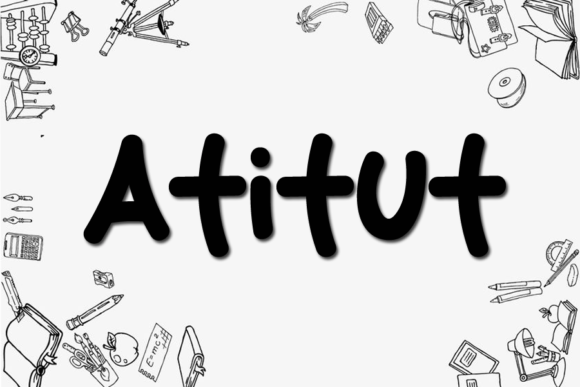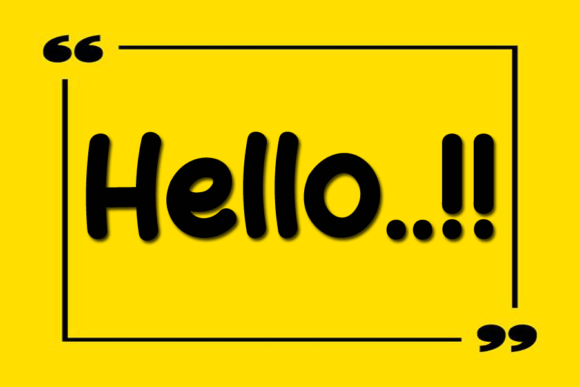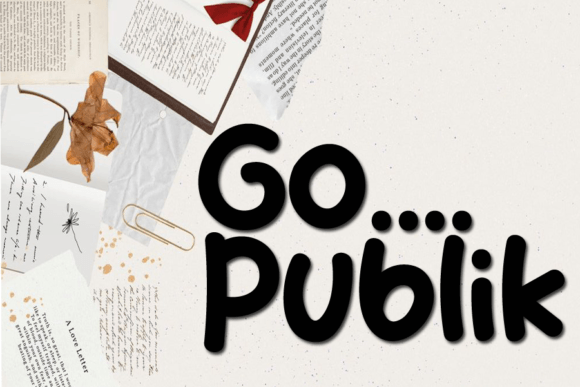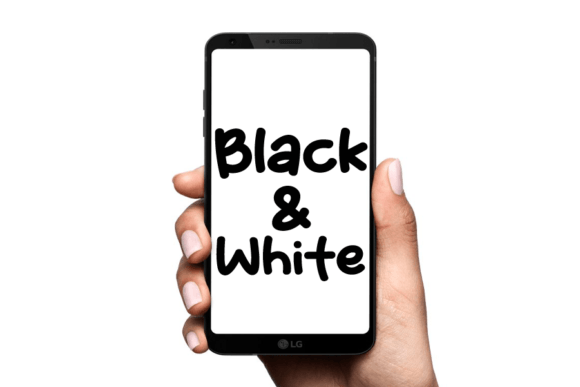
Gobold Font
About Gobold Font
Gobold is a font that effortlessly blends friendliness with a casual, handwritten charm, creating a delightful and modern style that transports your designs into a magical world of creativity. Its whimsical characteristics make it the perfect choice for a wide range of applications, allowing you to infuse a sense of joy and warmth into your projects.
The friendly and casual nature of Gobold sets it apart, making it a versatile font for both digital and print media. Whether you’re designing social media graphics, invitations, merchandise, or any other creative project, Gobold adds a touch of modern whimsy to your text.
Picture Gobold on an invitation to a whimsical event, where its friendly and casual style sets the perfect tone. Imagine it on social media graphics, infusing your posts with a playful and modern vibe. Whether applied to merchandise or any other creative endeavor, Gobold is designed to be a font that immerses your audience into a magical world of imagination.
What makes Gobold truly special is its ability to convey a sense of magic and wonder. The handwritten charm adds a personal touch, making your text feel approachable and inviting. The modern elements bring a contemporary flair, ensuring that your designs stay current and engaging.
Gobold isn’t just a font; it’s a creative companion that opens the door to a realm of possibilities. Its whimsical style invites you to explore the magical side of design, encouraging you to let your creativity run wild. With Gobold, your projects become more than just visuals—they become enchanting experiences that captivate and delight.
In conclusion, Gobold is your ticket to a magical design journey. Embrace its friendly and casual handwritten charm, and watch as it transforms your projects into captivating works of art. Let Gobold be the bridge to a world where creativity knows no bounds, and every design is an enchanting adventure.